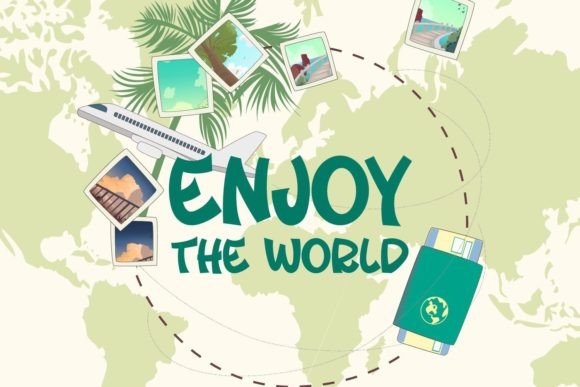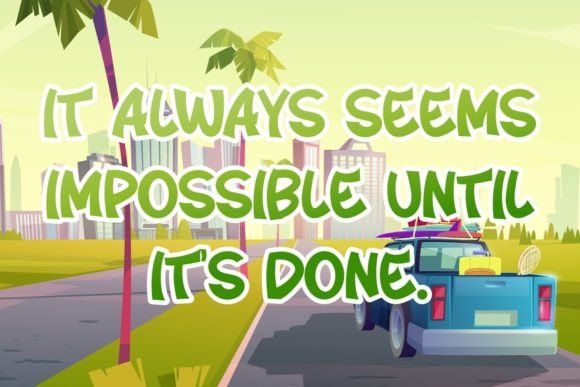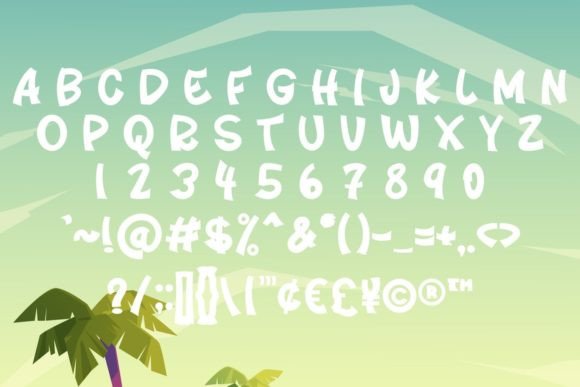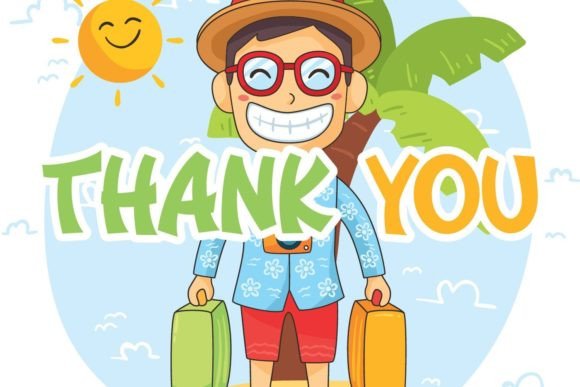
Discover the Delightful Alive Vocation Font: A Perfect Fit for Kids’ Designs
I’ll never forget the time I was working on a children’s party invitation project, and I just couldn’t seem to find the right font. My client wanted something fun, playful, and kid-friendly, but everything I tried looked either too boring or too overwhelming. That’s when I stumbled upon the Alive Vocation font, and it instantly became my go-to choice. In this article, I’ll share my experience with this adorable display font, its features, and how to make the most of it in your designs.
An Honest Review of Alive Vocation Font
As a designer, I always look for fonts that can elevate my projects and make them more engaging. Here’s what I love about Alive Vocation:
• ✨ Fun and playful vibe: This font has a unique, bubbly personality that’s perfect for kids’ designs, party invitations, and educational materials.
• ✅ Ease of use: Alive Vocation is incredibly easy to read, even at smaller sizes, making it versatile for various design applications.
• 💕 Customization options: With its range of OpenType features and glyphs, you can experiment with different styles and alternates to match your design’s tone.
While Alive Vocation is an excellent font, it’s not without its quirks:
• 🤔 Limited suitability for body text: Due to its playful nature, Alive Vocation works best as a display font. It might not be the best choice for longer blocks of text.
• ⚠️ Requires careful pairing with other fonts: To avoid visual overload, it’s essential to pair Alive Vocation with complementary fonts that provide sufficient contrast.
The Story Behind Alive Vocation
The Alive Vocation font was created with the intention of bringing joy and playfulness to design projects. Its designer aimed to craft a font that would instantly evoke a sense of fun and creativity, making it perfect for kids’ designs and other lighthearted projects. While the real story behind the font’s creation might be unknown, its impact on designers and crafters is undeniable.
Font Name Alive Vocation Font
Author Planetz studio
What makes Alive Vocation font suitable for kids’ designs? Its playful and fun vibe, combined with its readability, makes it an excellent choice for kids’ designs, party invitations, and educational materials.